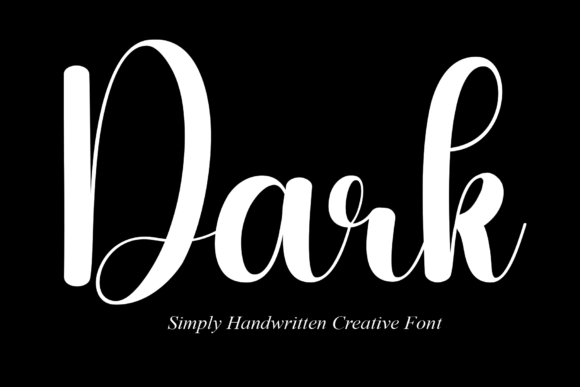
Introduce yourself to the world of Dark Font, an entrancing script font family that will leave you spellbound with its exquisite beauty and captivating charm. Handcrafted by the visionary Roronoa zoro.S.P.D., this font is a masterpiece of creativity, designed to elevate your designs to new heights of elegance and sophistication.
Immerse yourself in the allure of Dark Font's meticulously crafted letters, each one a testament to the art of typography. Its fluid strokes and graceful curves evoke a sense of timeless elegance, while its dynamic contrast adds a touch of contemporary flair. Whether you're creating wall displays, wedding invitations, captivating logos, advertisements, or any other design project, Dark Font will effortlessly elevate your vision, leaving a lasting impression on your audience.
With Dark Font at your disposal, you'll have the creative freedom to explore a world of possibilities. Unleash your imagination and let the font's enchanting personality shine through in your designs. Whether you're a seasoned designer or just starting your creative journey, Dark Font will seamlessly integrate into your workflow, unlocking your true creative potential.
Don't settle for ordinary fonts that fail to capture the essence of your unique style. Embrace the magic of Dark Font and embark on a journey of creative exploration that will transform your designs into stunning works of art. Its versatility knows no bounds, allowing you to effortlessly create designs that captivate and inspire.